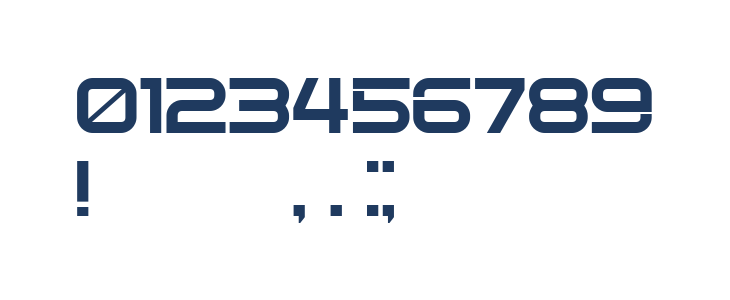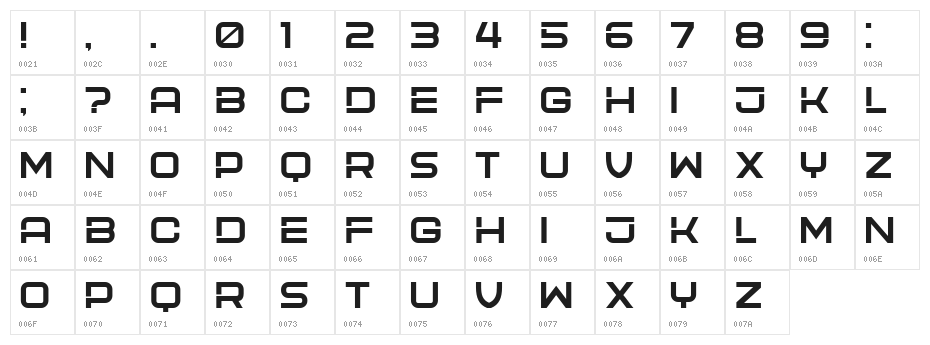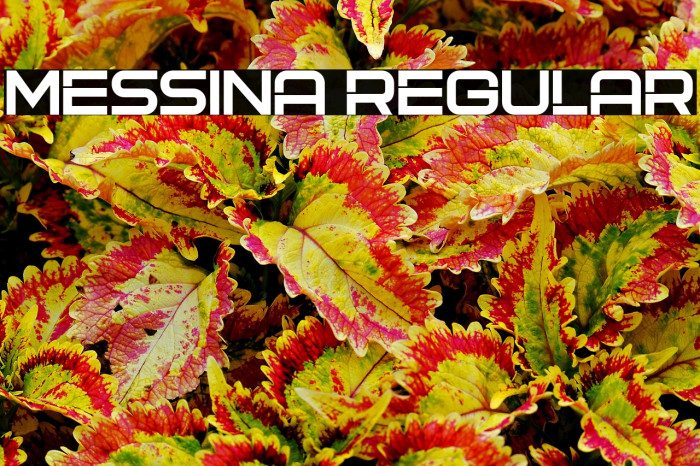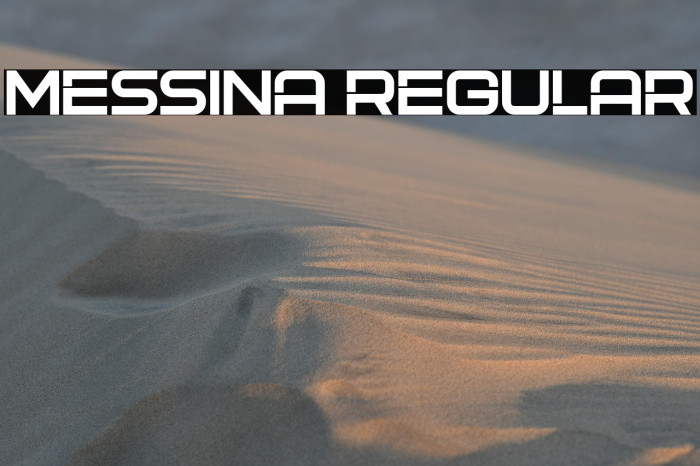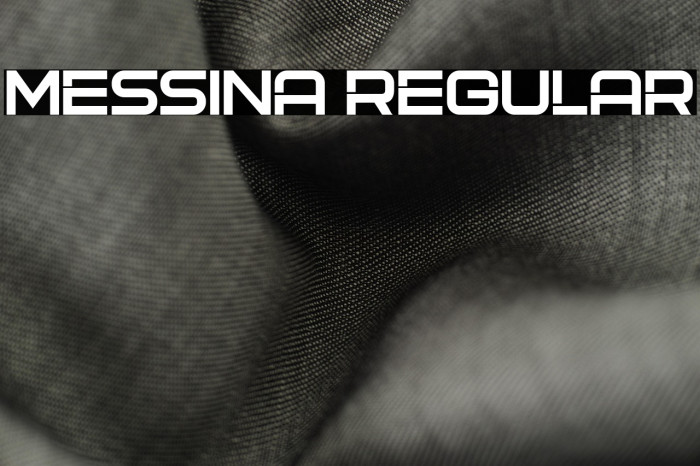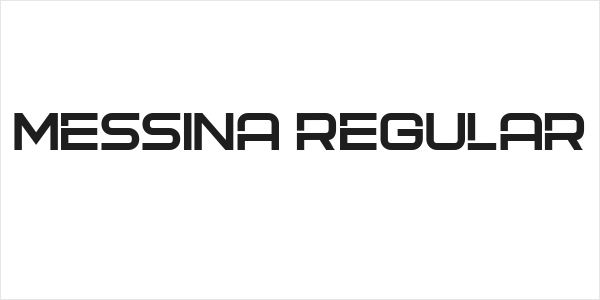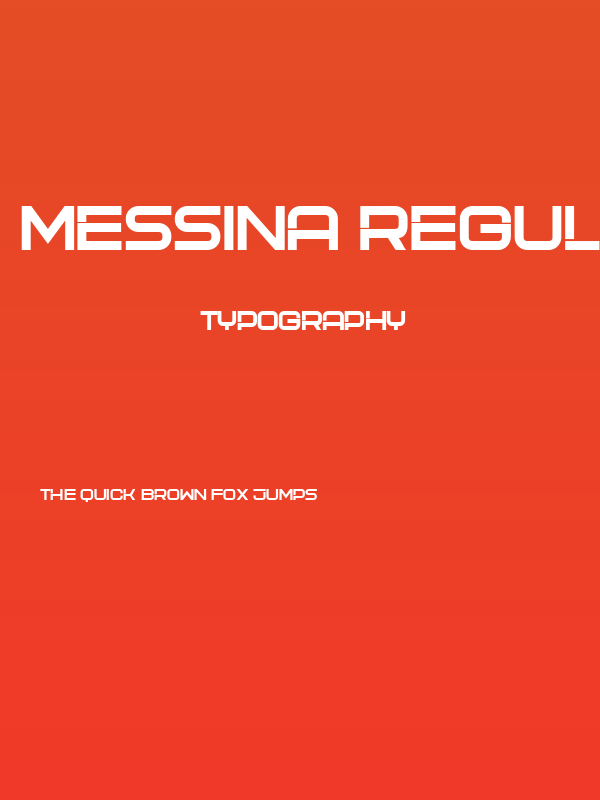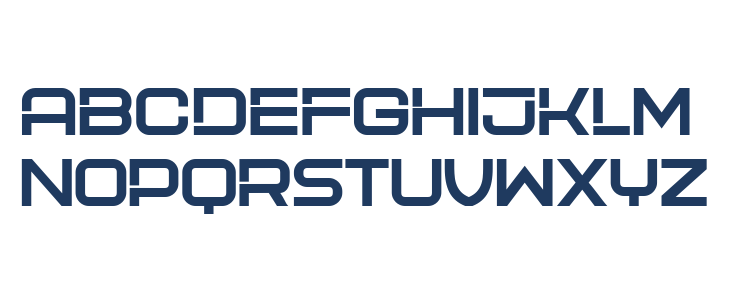
Messina Regular Font
Messina Regular Description
This font features a bold, geometric design with a modern and futuristic aesthetic. The characters are constructed with a consistent stroke width, giving it a monospaced appearance. The angular and blocky shapes of the letters create a strong visual impact, making it suitable for attention-grabbing headlines and logos. The uppercase and lowercase letters maintain a uniform style, while the numerals and special characters complement the overall design. The font's clean lines and structured form make it ideal for projects that require a contemporary and tech-inspired look.